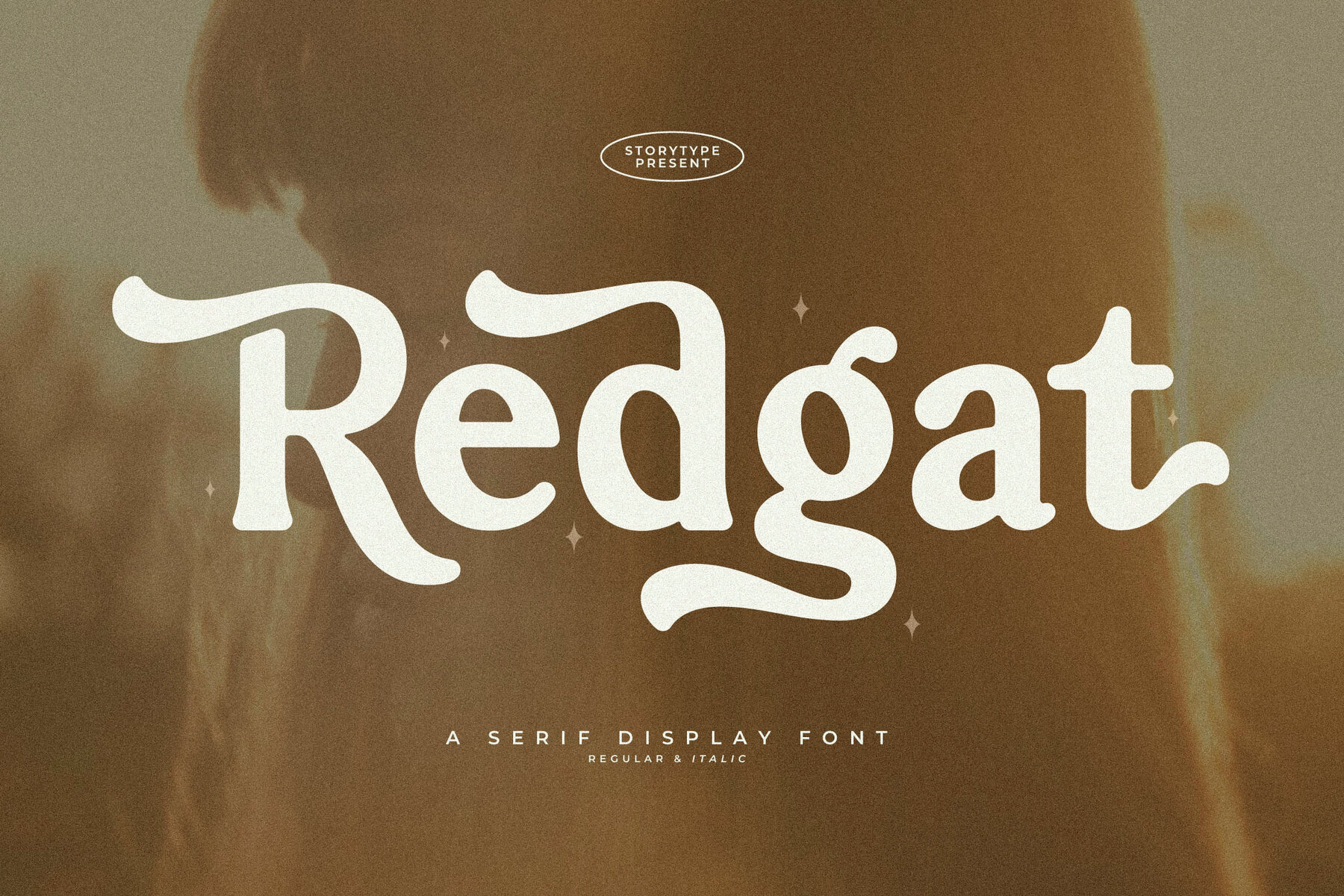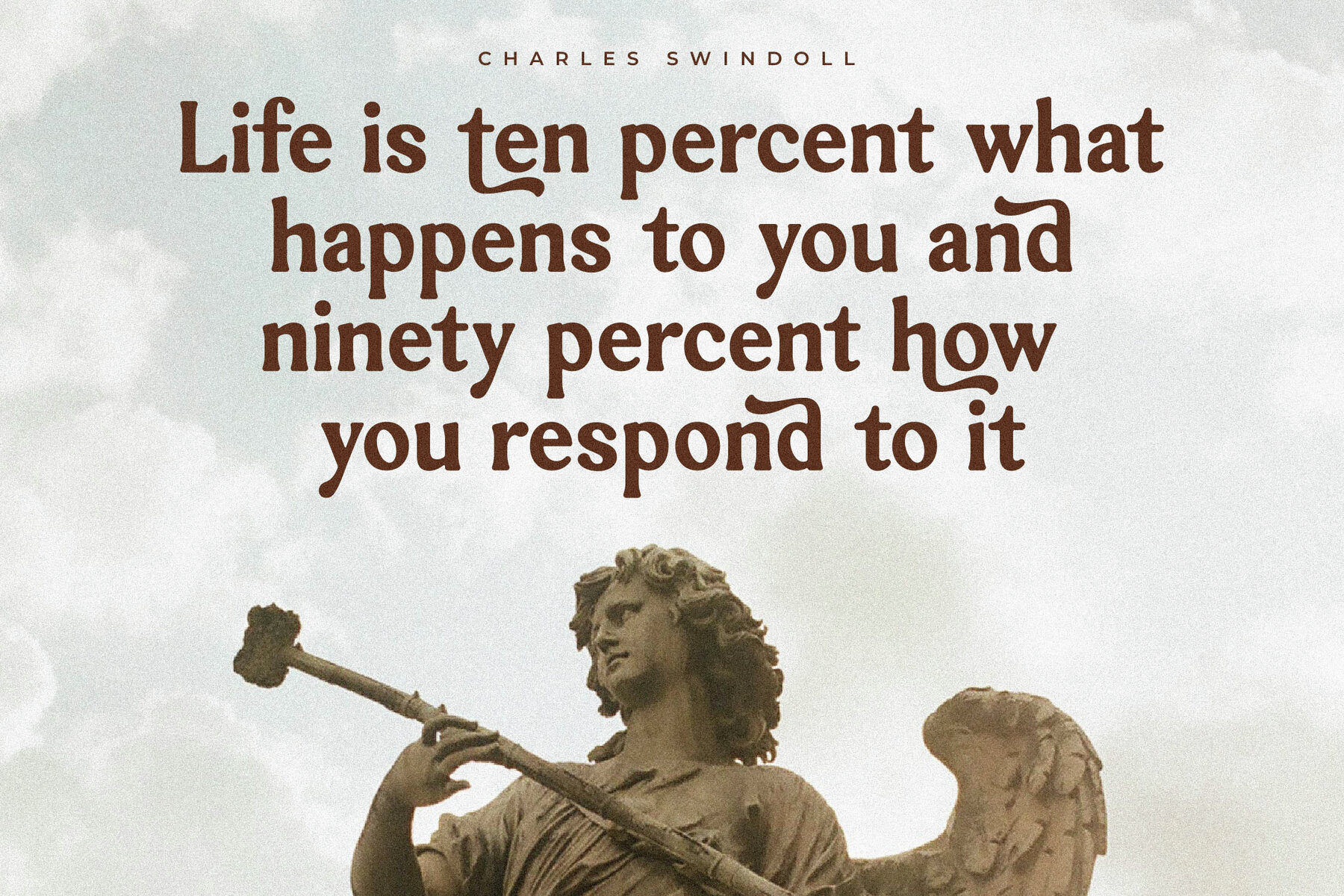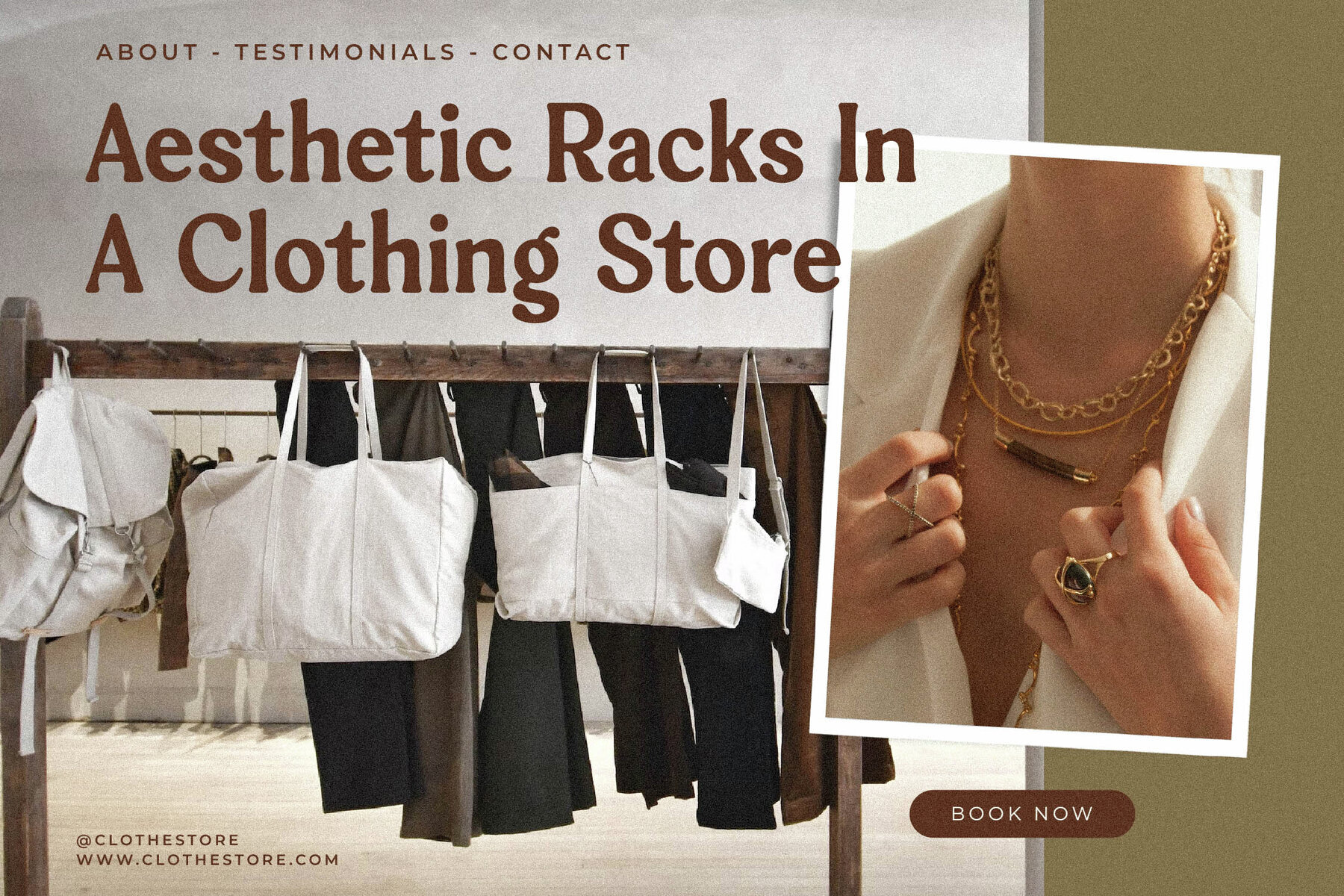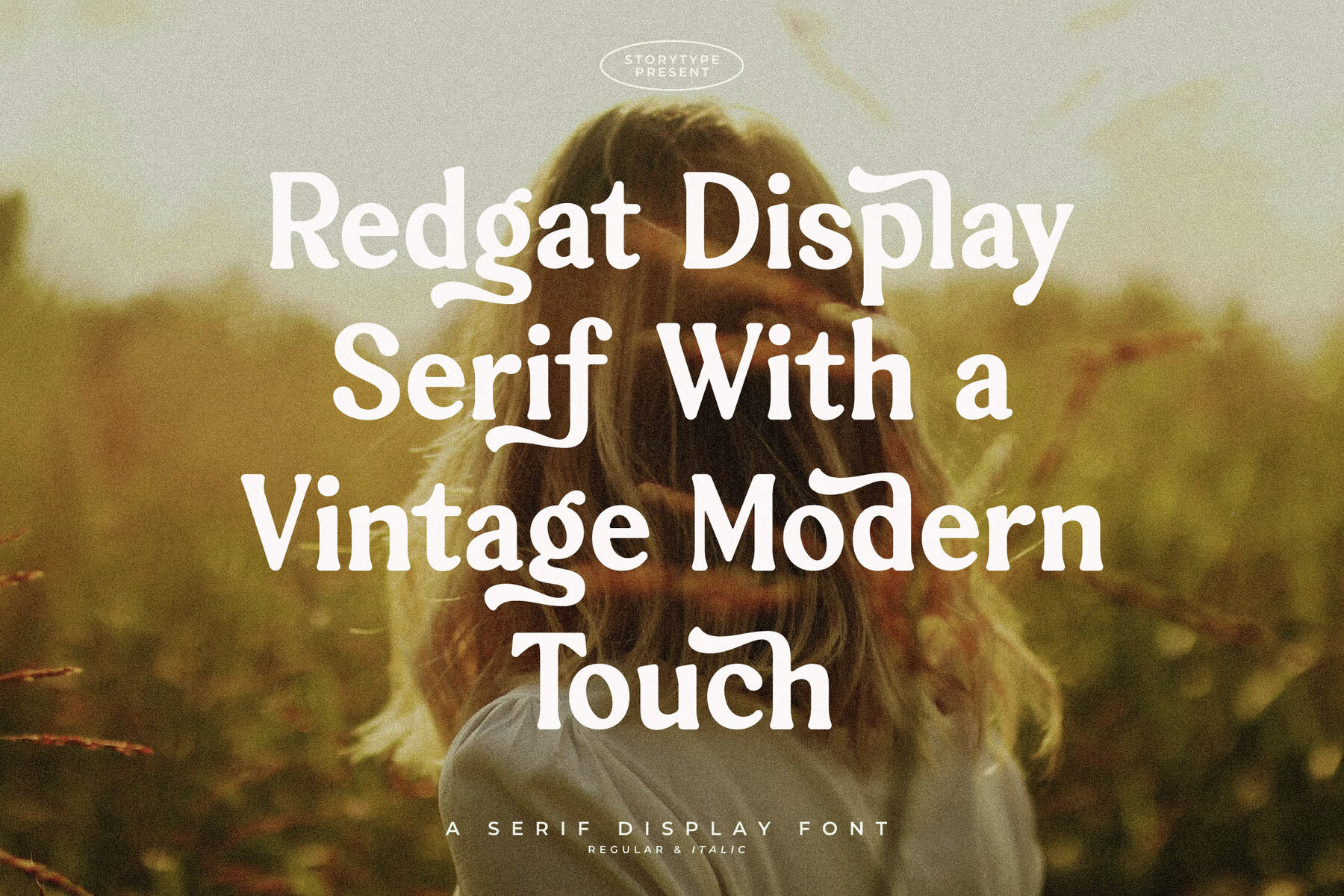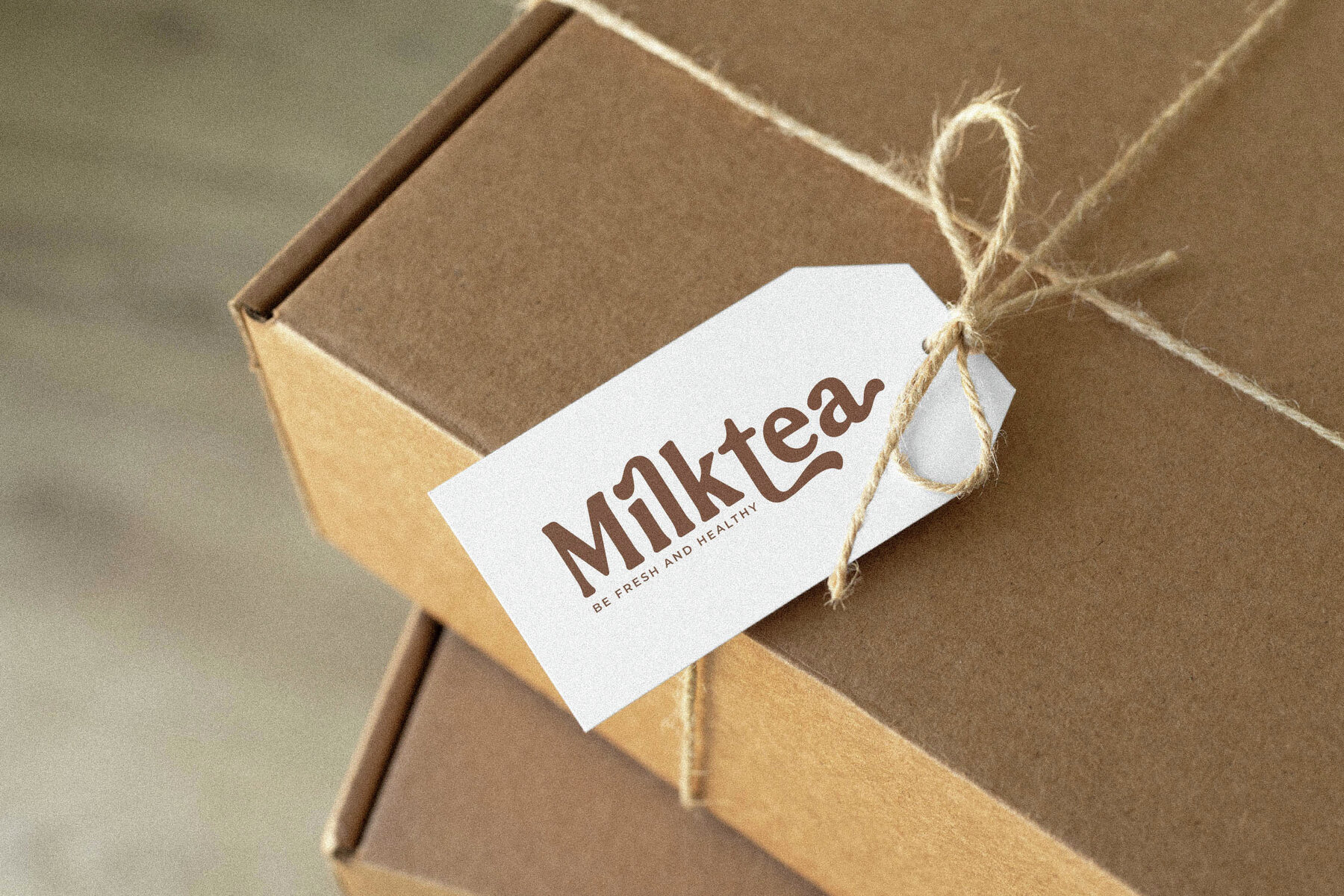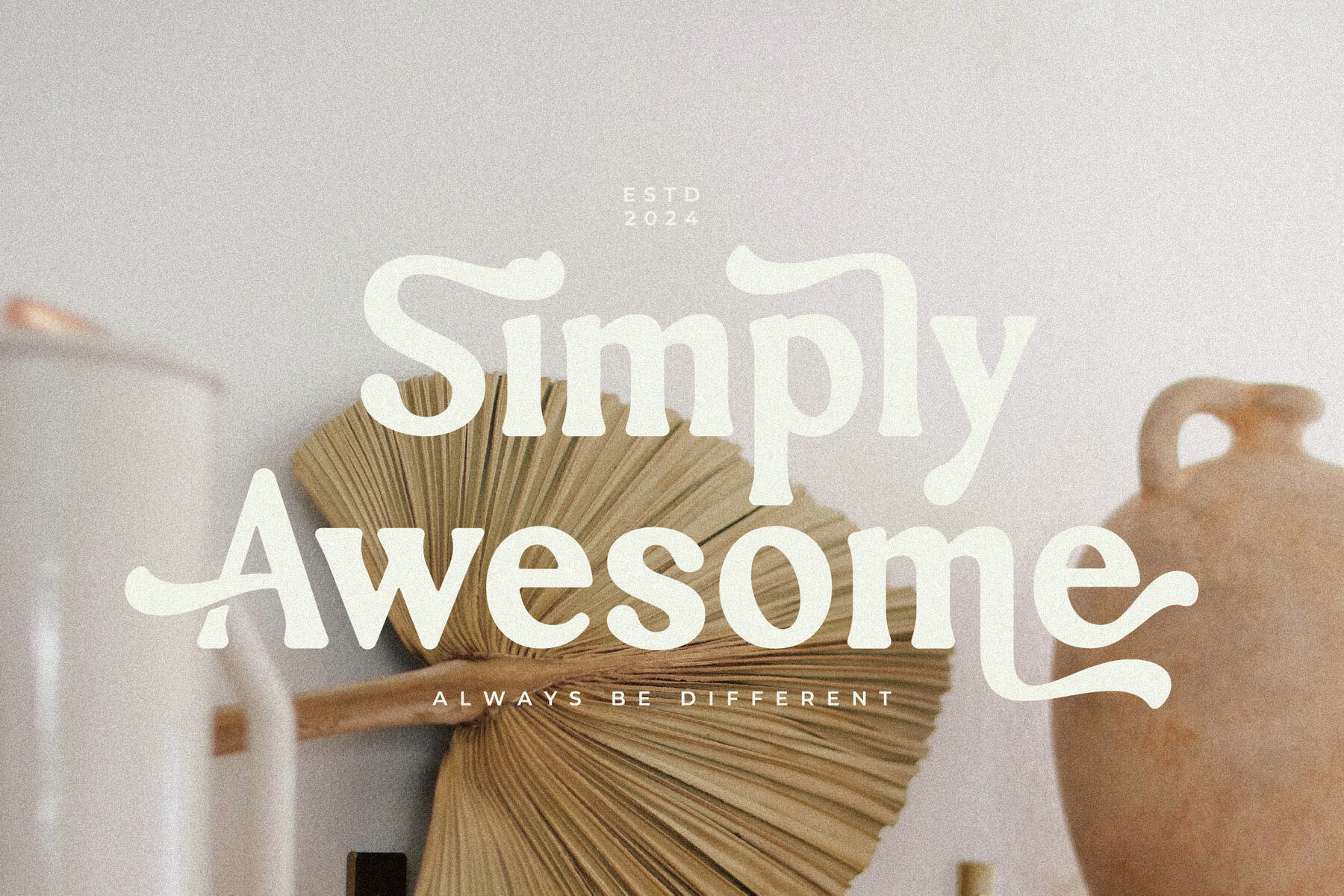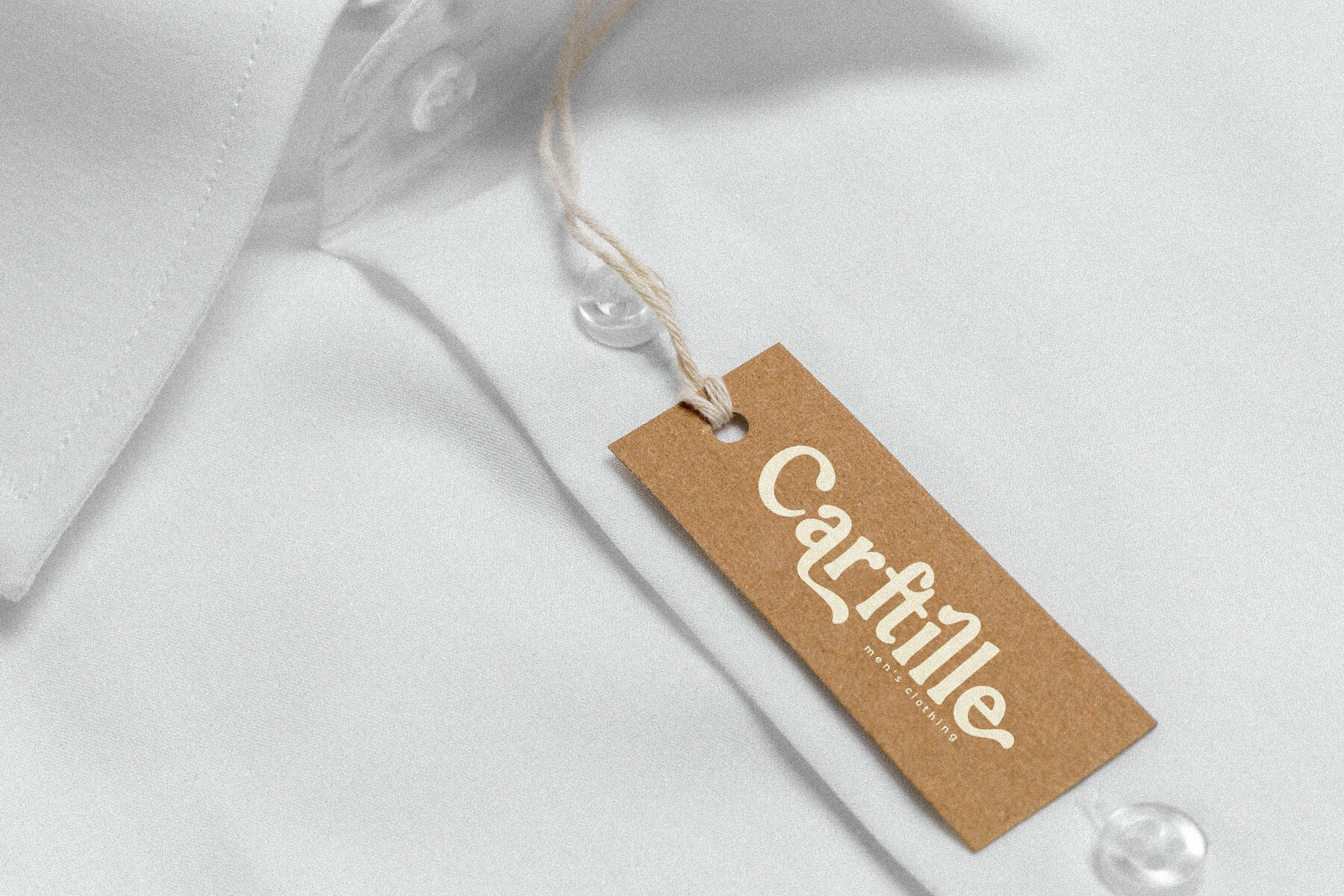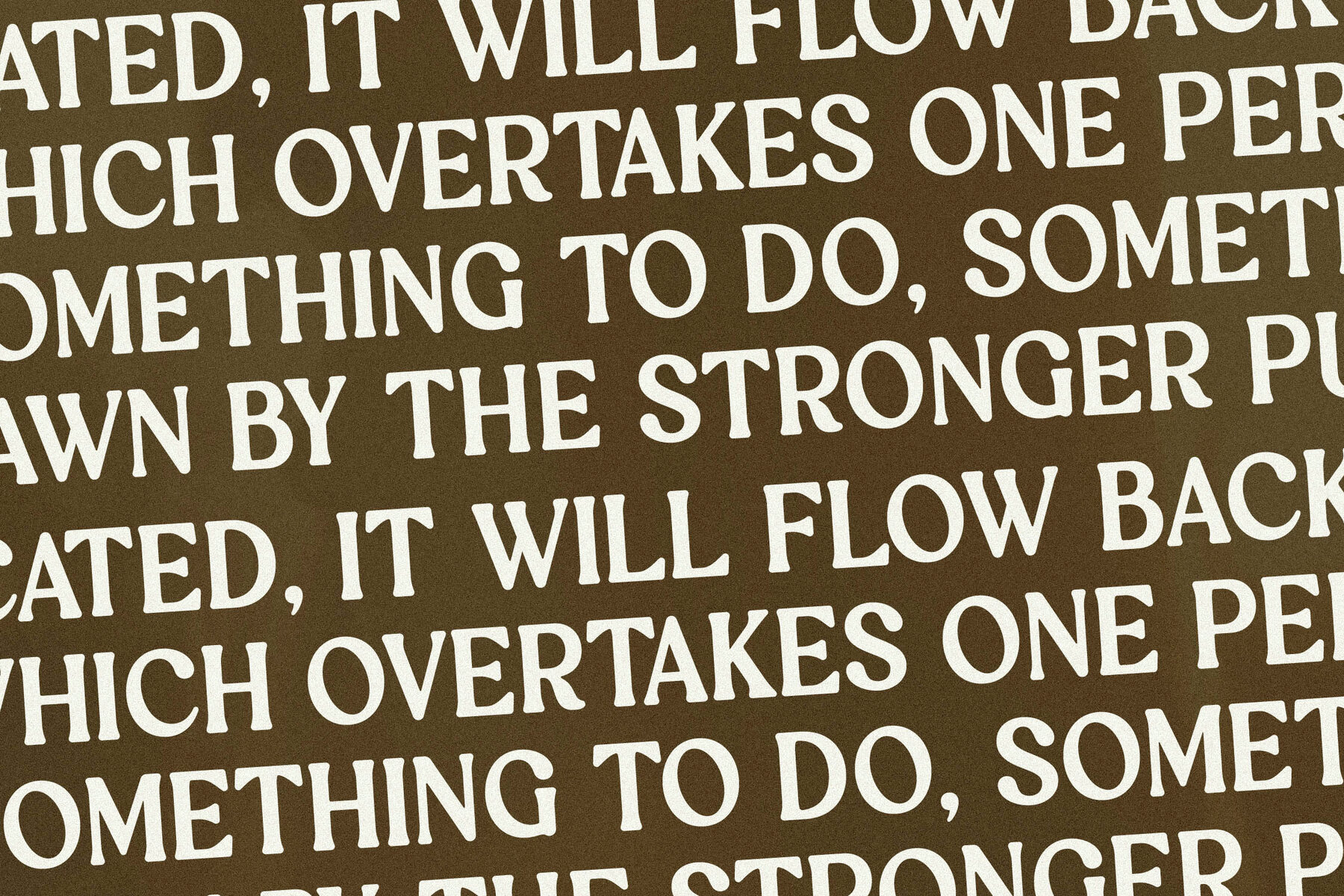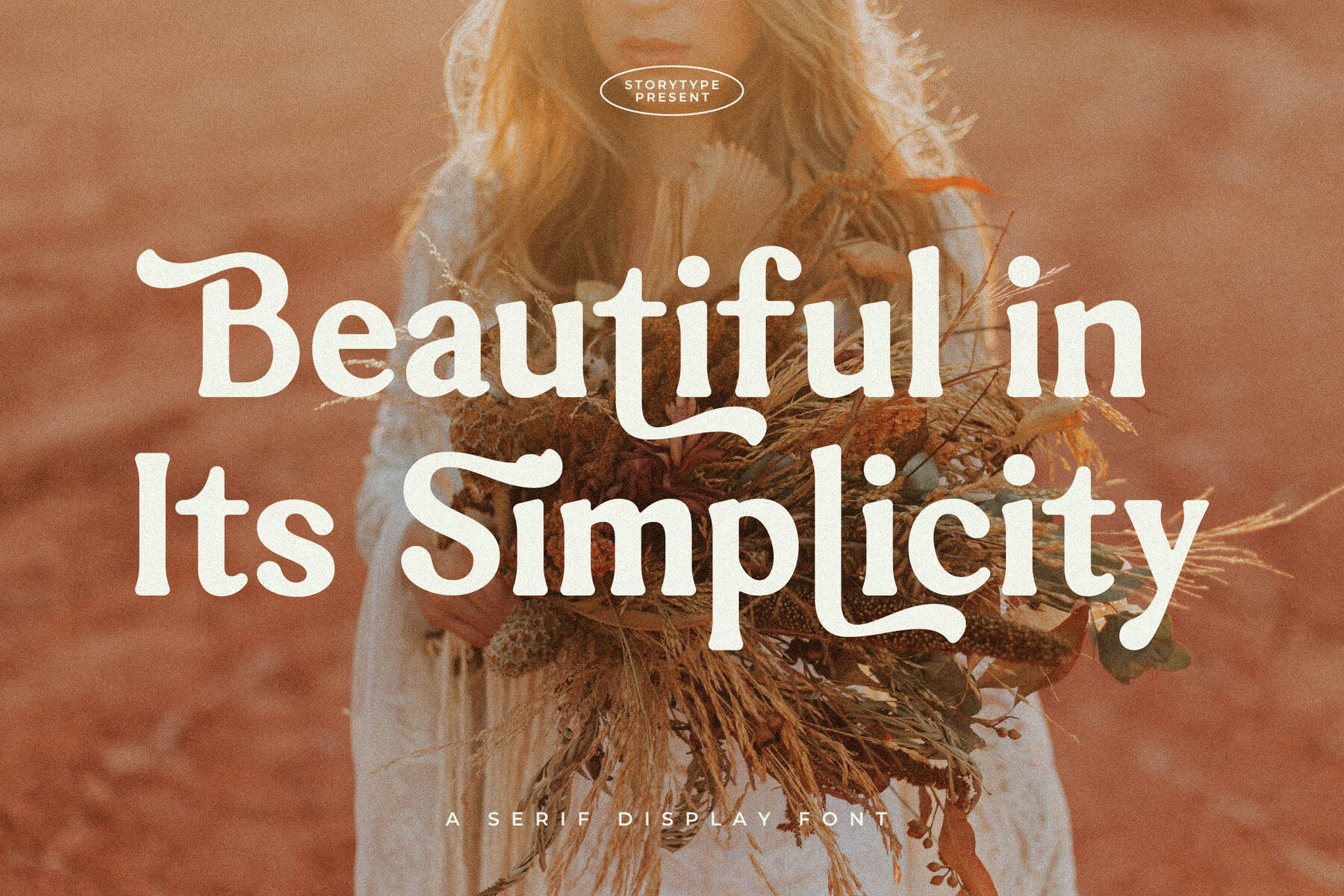
Redgat Font
Redgat
Redgat Italic
The Redgat Typeface from Storytype Studio seamlessly blends modern elegance with a classic flair. This serif typeface offers a distinct style and contemporary aesthetic, making it ideal for crafting luxurious logos, sophisticated book or movie titles, fashion branding, and more. Whether designing for a magazine, clothing line, or simply adding beautiful quotes to your artwork, Redgat adds a touch of refinement.Enhance Your Designs with Redgat Typeface